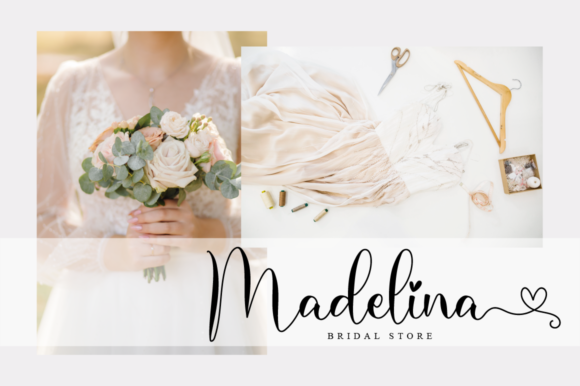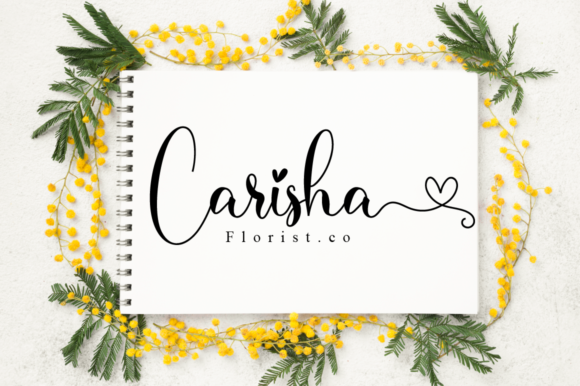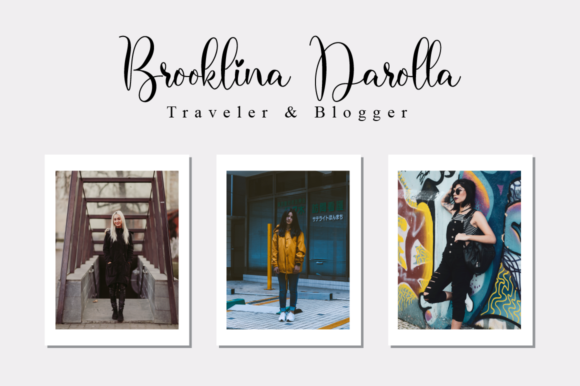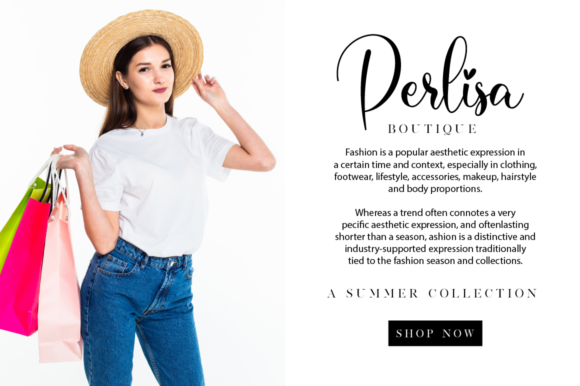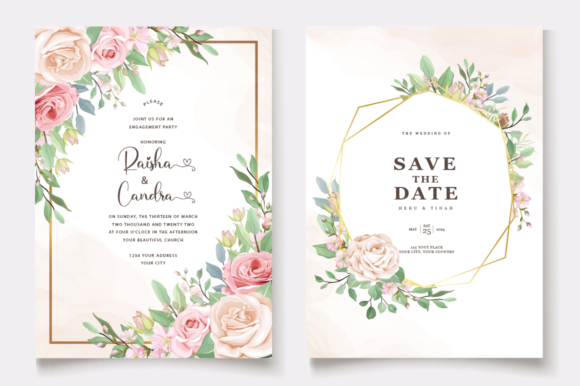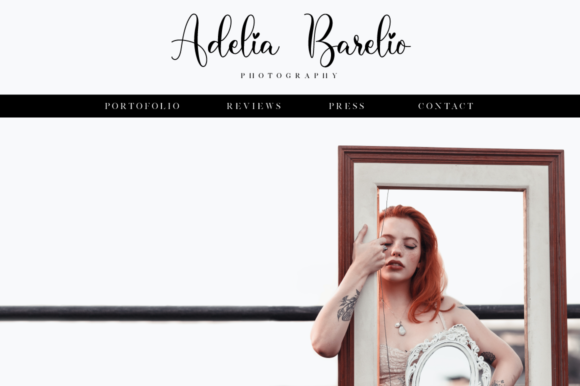
Introduction to Omiley Font
Have you ever been stuck on a design project, struggling to find the perfect font to bring your vision to life? We’ve all been there – the blank screen staring back at us, the endless scrolling through font libraries, the frustration of settling for something that just doesn’t quite fit. But what if I told you that there’s a font that could change all that? A font that’s not just elegant and flowing, but also incredibly versatile and easy to use.
Enter the Omiley Font, a beautifully crafted handwritten font that’s designed to elevate your creative projects to the next level. With its PUA encoding and stunning alternates, you’ll have access to a world of design possibilities that will make your work stand out in a crowded field.
Whether you’re a seasoned designer or just starting out, the Omiley Font is a valuable resource that’s sure to become a go-to favorite. And the best part? It’s available for free download, so you can start exploring its many possibilities right away.
Honest Review: Omiley Font
As a designer, I’ve had the chance to work with a variety of design resources, but the Omiley Font is definitely one that stands out. I was blown away by its high quality and versatility, making it an excellent choice for a wide range of creative projects.
- High-quality design: The Omiley Font is beautifully crafted, with clean lines and a professional feel.
- Transparent background: This allows for seamless integration with any design, making it incredibly versatile.
While the Omiley Font is an excellent choice for many projects, there are a few limitations to consider:
- Not suitable for formal or corporate designs: The font’s playful, cursive style may not be suitable for more formal or corporate designs.
- Limited customization options: While the font is high quality, it may not offer the level of customization that some designers are looking for.
Overall, I’m thoroughly impressed with the Omiley Font. Its high quality, transparent background, and free download make it an excellent choice for designers working on creative projects. While it may not be suitable for every project, it’s definitely worth considering for a wide range of designs.
Common Use Cases for Omiley Font
Omiley Font is suitable for a wide range of creative projects, including business cards, brochures, and social media graphics. Its high-quality design and transparent background make it an ideal choice for designers seeking a professional and modern look.